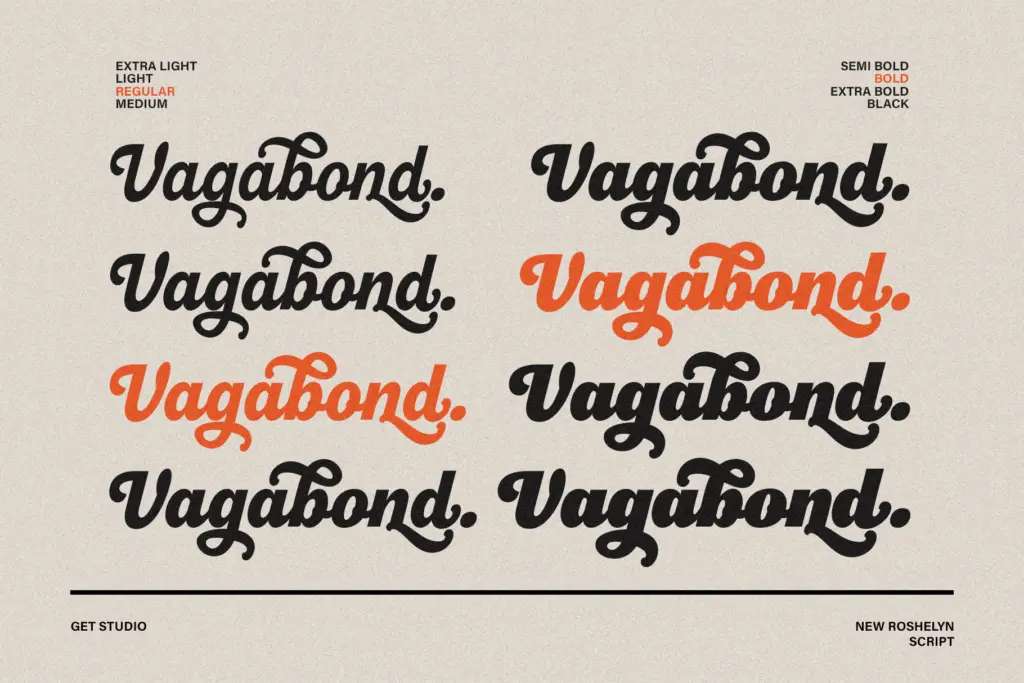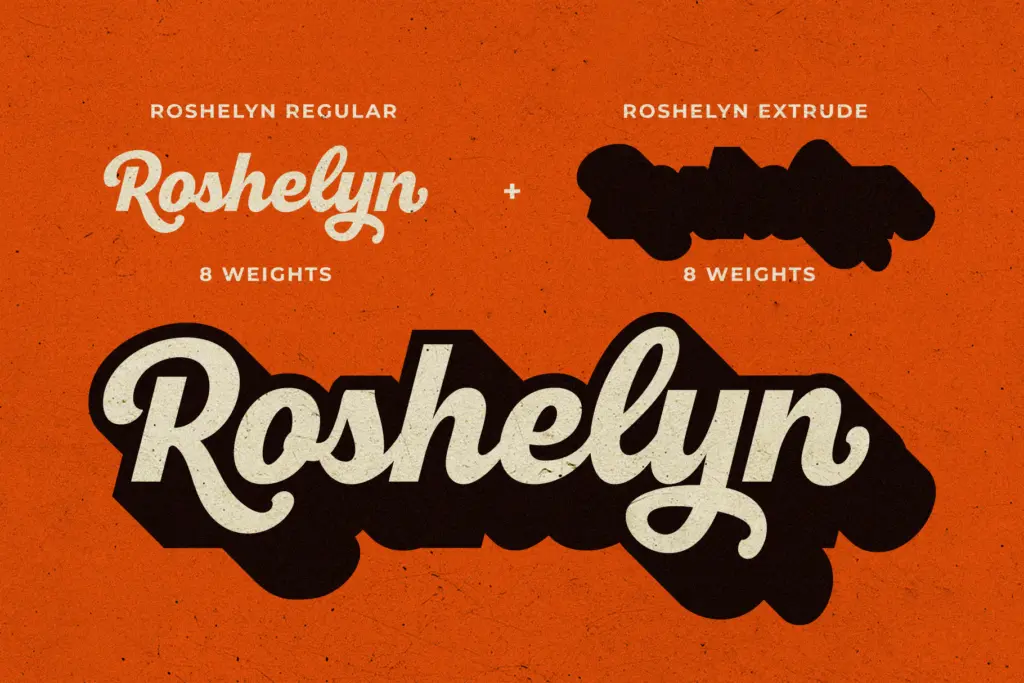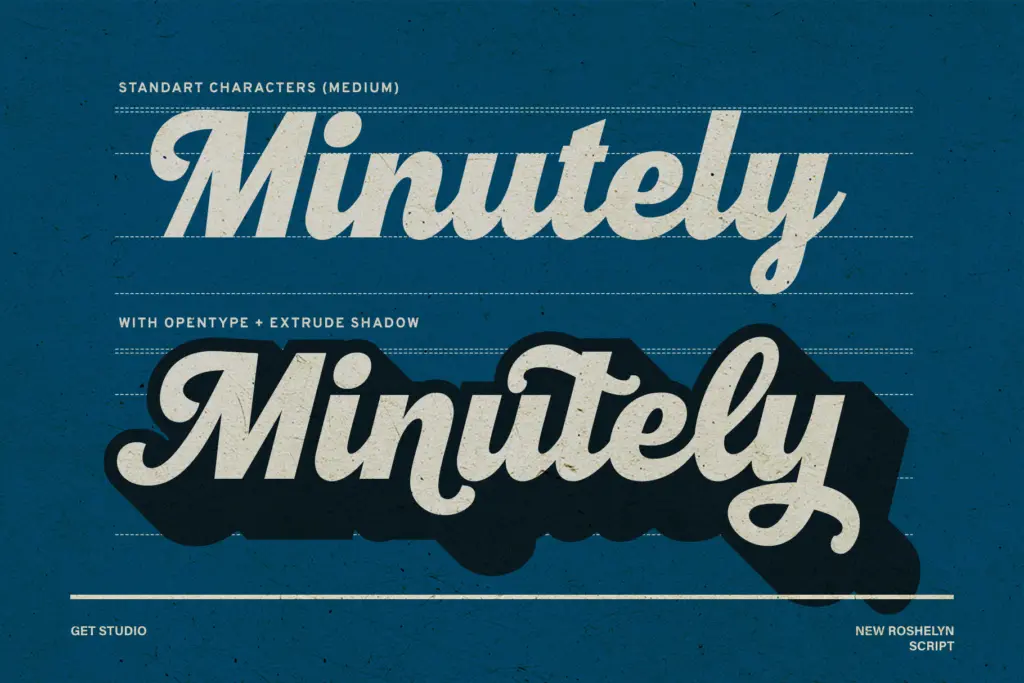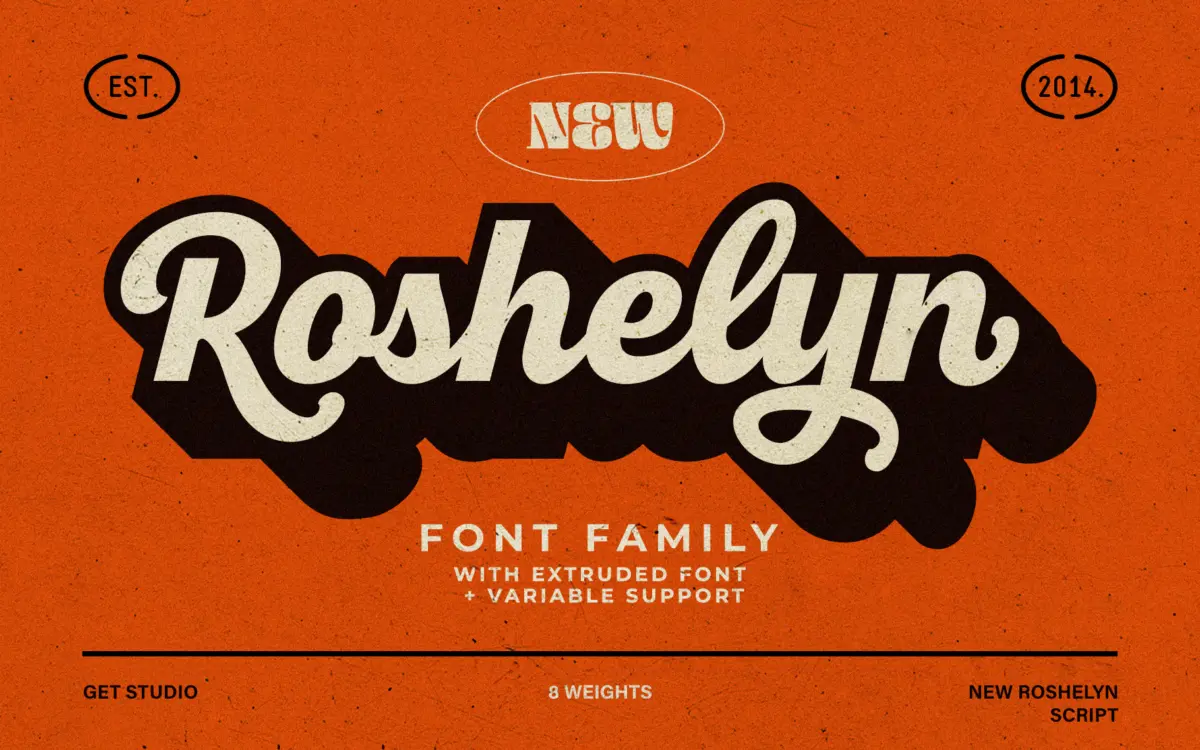
New Roshelyn Script sits in the connected-cursive tradition, but it’s been drawn with a retro badge-and-label sensibility rather than as a stand-in for handwriting. The strokes have a consistent, confident swing to them, and the joins between letters are smooth without collapsing into a monoline scrawl. What sets it apart from a plain script is the swash tail treatment and the extrude version bundled into the family — the extrude adds a layered, dimensional edge that reads like something stamped onto a vintage tin sign or stitched onto a varsity patch.
The curves are balanced rather than exaggerated. There’s flourish in the capitals and in select swash alternates, but the lowercase stays reasonably restrained, which keeps the whole thing from tipping into novelty-font territory. It’s a script with a wink, not a shout.
The family leans on OpenType infrastructure to do its work: stylistic alternates, stylistic sets, and ligatures are all present, and they’re the mechanism by which this font goes from generic script to something with texture and variation. Used in an OpenType-aware app like Illustrator, Photoshop, or InDesign, you can swap in alternate letterforms and ligated pairs to break up repetition — useful in scripts, where the same letter appearing three times in a headline can look mechanical if left unaddressed.
The inclusion of an extrude version effectively doubles the practical range of the family. Where the standard weight is a clean connected script, the extrude adds a faux-3D layer that’s clearly built for large-scale display use — think badge logos, embroidered patches, or poster type — rather than anything meant to be read in a paragraph. Mixing the two within a single design, using the plain script for supporting text and the extrude for a hero word, is clearly part of the intended workflow, and it’s a reasonable one.
Because it depends on OpenType features to unlock its alternates, the font asks a bit more of the user than a plug-and-play script. Anyone working outside a full OpenType environment — some web builders, some office software — will only see the default glyph set, which is serviceable but noticeably plainer than what the feature panel offers.
This is a font for short bursts of type: logotypes, badges, packaging headlines, apparel graphics, greeting cards, and wedding stationery where a flourish-heavy script sets the tone. The extrude version in particular suits retro branding — craft labels, barbershop signage, throwback product packaging — where a dimensional script reads as established rather than dated.
It is not built for body copy or anything requiring sustained reading; the joins and swashes that make it distinctive at large sizes will fight legibility the moment it’s shrunk into a paragraph or a caption. Treat it as a display and lettering tool, paired with a plainer typeface for anything that needs to be read at length, and it does its job well.
- Extrude version adds genuine dimensional variety for badge and packaging work
- Stylistic alternates and ligatures let you break up repeated letters in a headline
- Swing and swash detailing feel retro without tipping into novelty
- Full character variation depends on OpenType support, so basic apps only show default glyphs
- Not suited to anything beyond short headline or logotype-length text
New Roshelyn Script is a well-balanced badge-and-label script that gets real mileage out of its swash alternates and extrude companion. It's a display tool through and through, built for short headline moments rather than reading text, and it asks users to work through OpenType features to get the best of it.